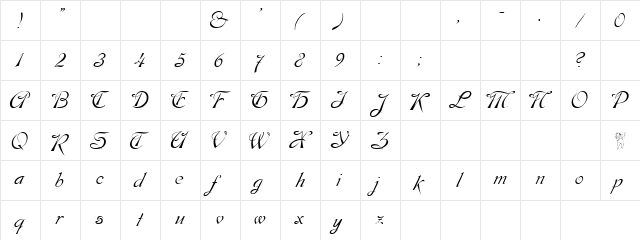
Toby Thom Regular
Design Context for Toby Thom Typeface
Toby Thom is a composed and adaptable typeface that performs quietly and consistently across a wide range of design contexts.